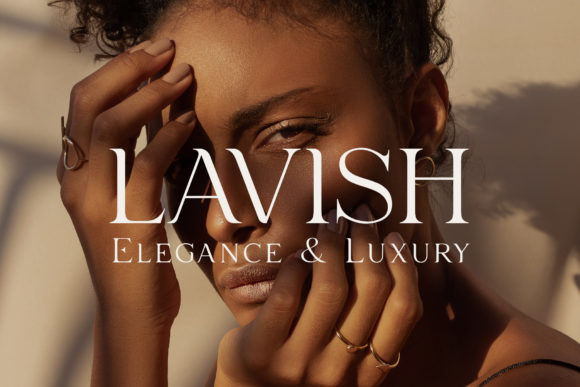
Welcome to Lavish, the perfect font for all your crafting needs! Created by HipFonts, this elegant serif font is sure to elevate any project you have in mind. Lavish is the perfect choice for those looking to create stunning logos and designs for their restaurant or food-related business. With its tall and sophisticated lettering, this font exudes an air of class and refinement, making it the ideal choice for any business or project that wants to convey a sense of luxury and elegance.
Lavish is more than just a beautiful font, though. It is also incredibly versatile, making it a great choice for a wide range of crafting ideas. Whether you're creating invitations, cards, or labels, Lavish is sure to make your project stand out from the crowd. Its elegant and timeless design will draw the eye and capture the attention of anyone who sees it.
- Eye-catching and attention-grabbing: Lavish's tall and elegant lettering is sure to make your restaurant logo stand out from the competition. It's the perfect way to draw in customers and make a lasting impression.
- Classy and sophisticated: With its refined design and classic lettering, Lavish exudes an air of class and sophistication that is perfect for any high-end restaurant or food-related business.
- Versatile and flexible: Whether you're creating a logo, menu, or marketing materials, Lavish is the perfect choice. Its versatility and flexibility make it easy to use in a wide range of contexts, and it can be customized to suit your specific needs.